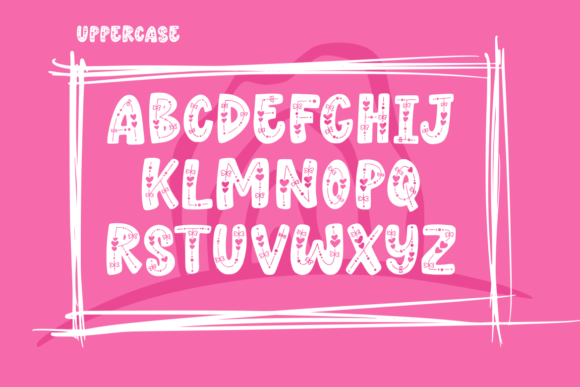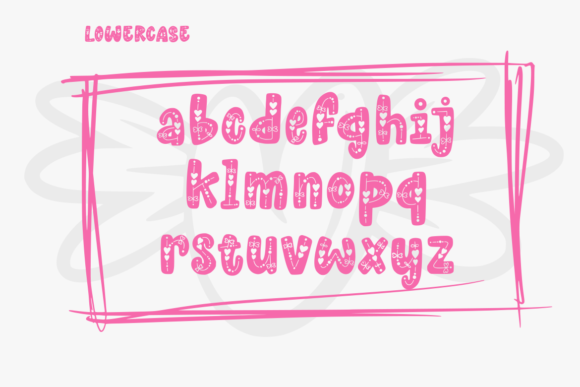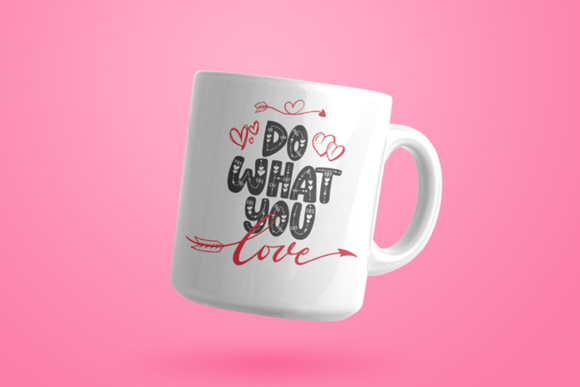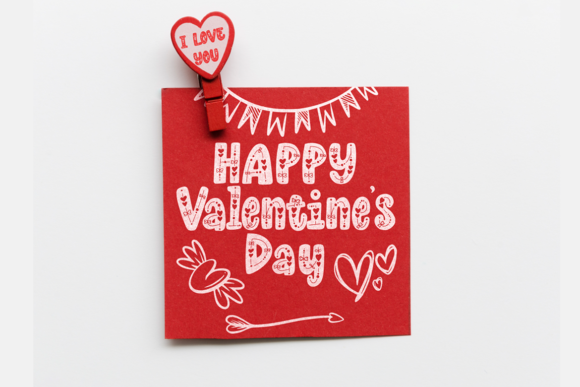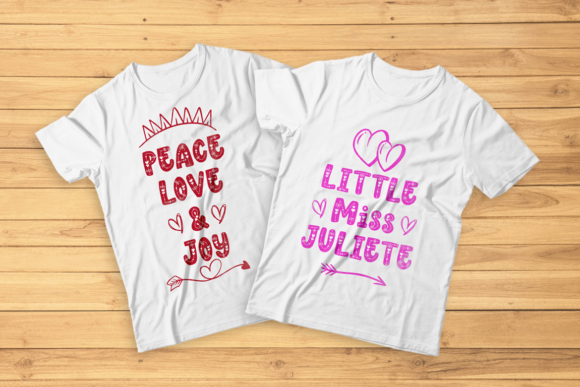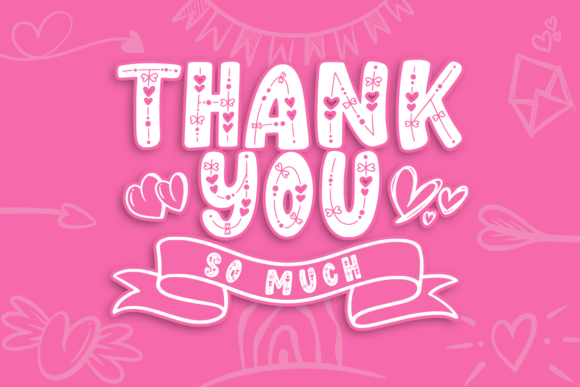
Candy Kisses Valentine Font: The Sweetest Addition to Your Valentine’s Day Crafts
Valentine’s Day is just around the corner, and what better way to make your crafts stand out than with a font that’s as sweet as the holiday itself? Look no further than the Candy Kisses Valentine Font, a casual and thick lettered decorative font that’s sure to add a playful touch to any Valentine’s Day project. In this article, we’ll dive into the details of this delightful font and explore how you can use it to make your Valentine’s Day crafts truly unforgettable.
A Playful and Decorative Font
Candy Kisses Valentine Font is a carefully crafted font that’s designed to bring a smile to your face. Its casual and thick lettered style gives it a playful feel that’s perfect for Valentine’s Day crafts. Whether you’re making cards, gift tags, or other DIY projects, this font is sure to add a touch of whimsy and fun. The font’s decorative style is also versatile enough to be used in a variety of contexts, from sweet and sentimental messages to bold and playful statements.
Perfect for Valentine’s Day Crafts
So, what makes Candy Kisses Valentine Font the perfect choice for your Valentine’s Day crafts? For starters, its playful and romantic feel is perfectly in line with the spirit of the holiday. The font’s bold and thick letters are also easy to read, making it a great choice for crafts that need to convey a message. Plus, the font’s decorative style adds a touch of elegance and sophistication that’s sure to impress. Whether you’re a professional crafter or just looking for a fun way to celebrate the holiday, Candy Kisses Valentine Font is the perfect addition to your creative toolkit.
Use it for a Variety of Crafts
Candy Kisses Valentine Font is a versatile font that can be used for a wide range of Valentine’s Day crafts. Here are just a few ideas to get you started:
- Valentine’s Day Cards: Use Candy Kisses Valentine Font to create one-of-a-kind Valentine’s Day cards that are sure to impress your friends and loved ones.
- Gift Tags: Add a personal touch to your gifts with custom gift tags featuring Candy Kisses Valentine Font.
- DIY Decorations: Use the font to create custom decorations, such as garlands, banners, and signs, that are sure to add a touch of Valentine’s Day cheer to your home.
- Social Media Graphics: Use Candy Kisses Valentine Font to create eye-catching social media graphics that are sure to stand out on Valentine’s Day.
Tips for Using Candy Kisses Valentine Font
Here are a few tips for getting the most out of Candy Kisses Valentine Font:
- Pair it with Other Fonts: Experiment with pairing Candy Kisses Valentine Font with other fonts to create a unique and eye-catching look.
- Use it in Combination with Images: Use Candy Kisses Valentine Font in combination with images, such as hearts, flowers, and other Valentine’s Day-themed graphics, to create a visually appealing design.
- Experiment with Colors: Don’t be afraid to experiment with different colors and color combinations to find the perfect look for your Valentine’s Day crafts.
Candy Kisses Valentine Font is a sweet and playful font that’s perfect for Valentine’s Day crafts. Its casual and thick lettered style gives it a fun and decorative feel that’s sure to add a touch of whimsy to any project. Whether you’re a professional crafter or just looking for a fun way to celebrate the holiday, Candy Kisses Valentine Font is the perfect addition to your creative toolkit. So why wait? Download Candy Kisses Valentine Font today and start creating your own unique and eye-catching Valentine’s Day crafts!
- Casual and thick lettered decorative font
- Playful and romantic feel
- Perfect for Valentine’s Day crafts, including cards, gift tags, and DIY decorations